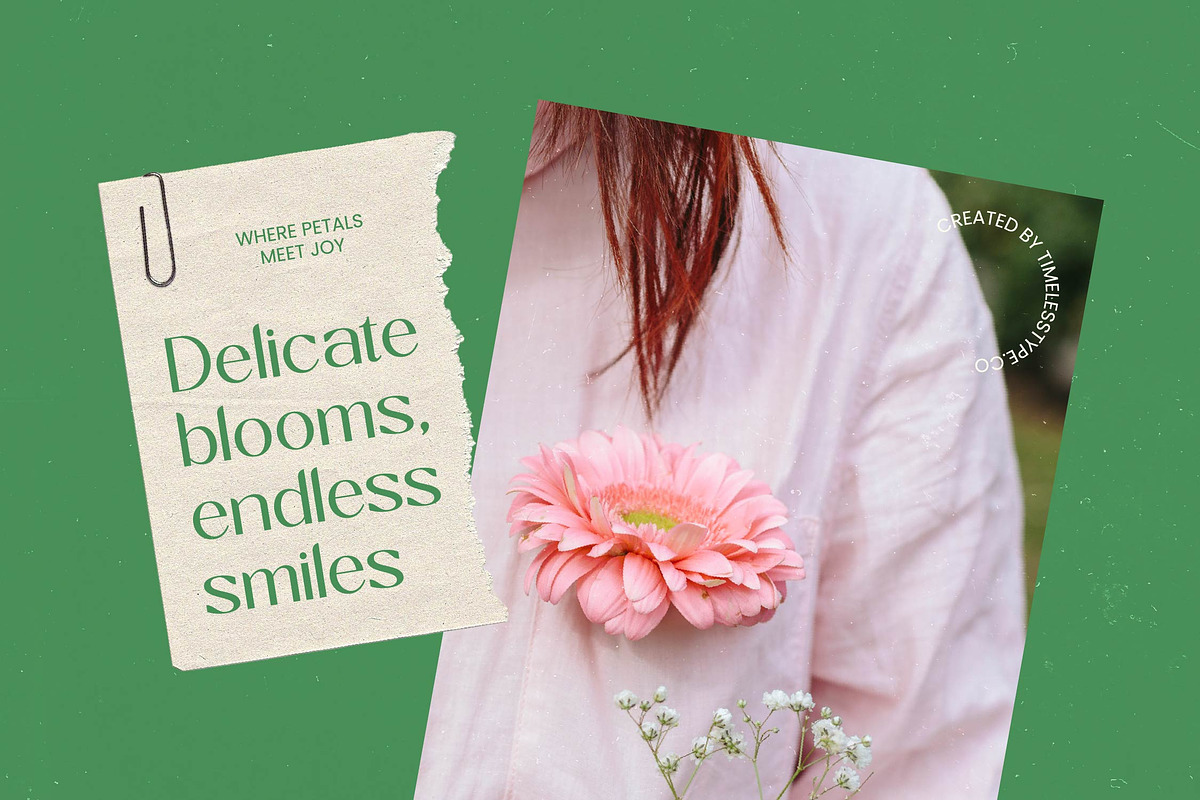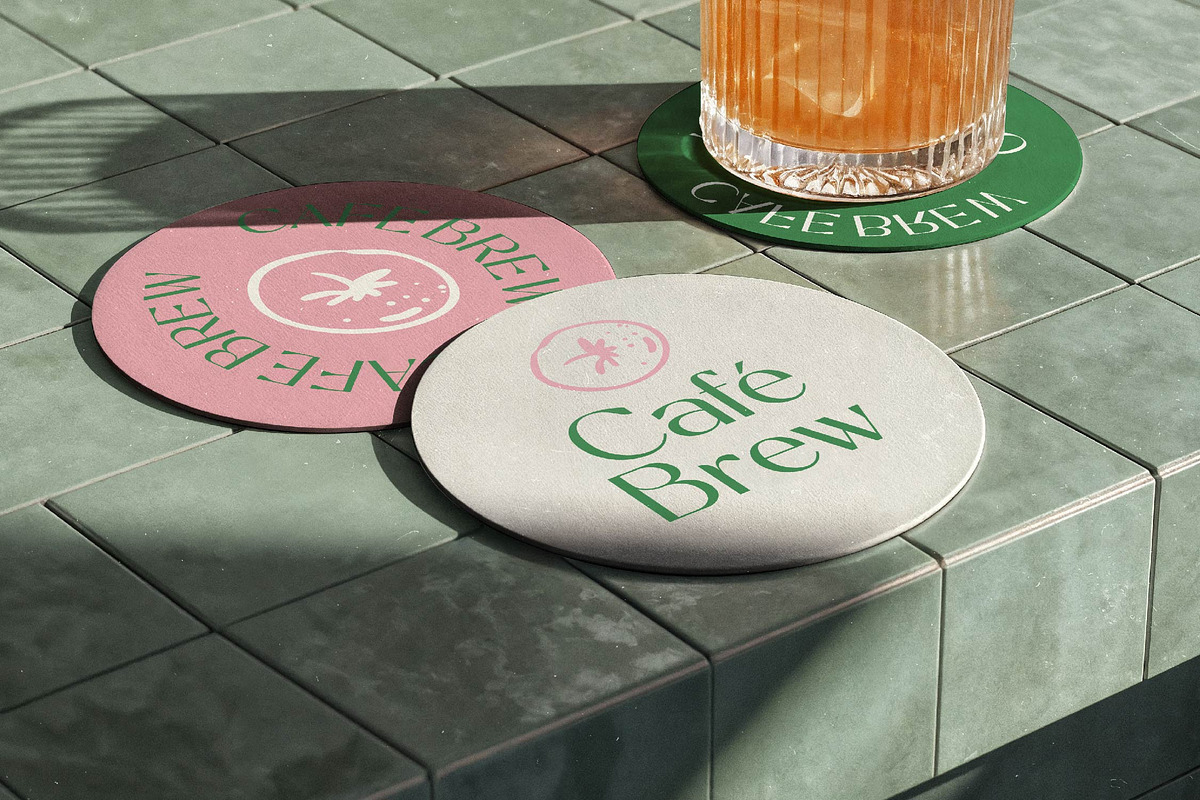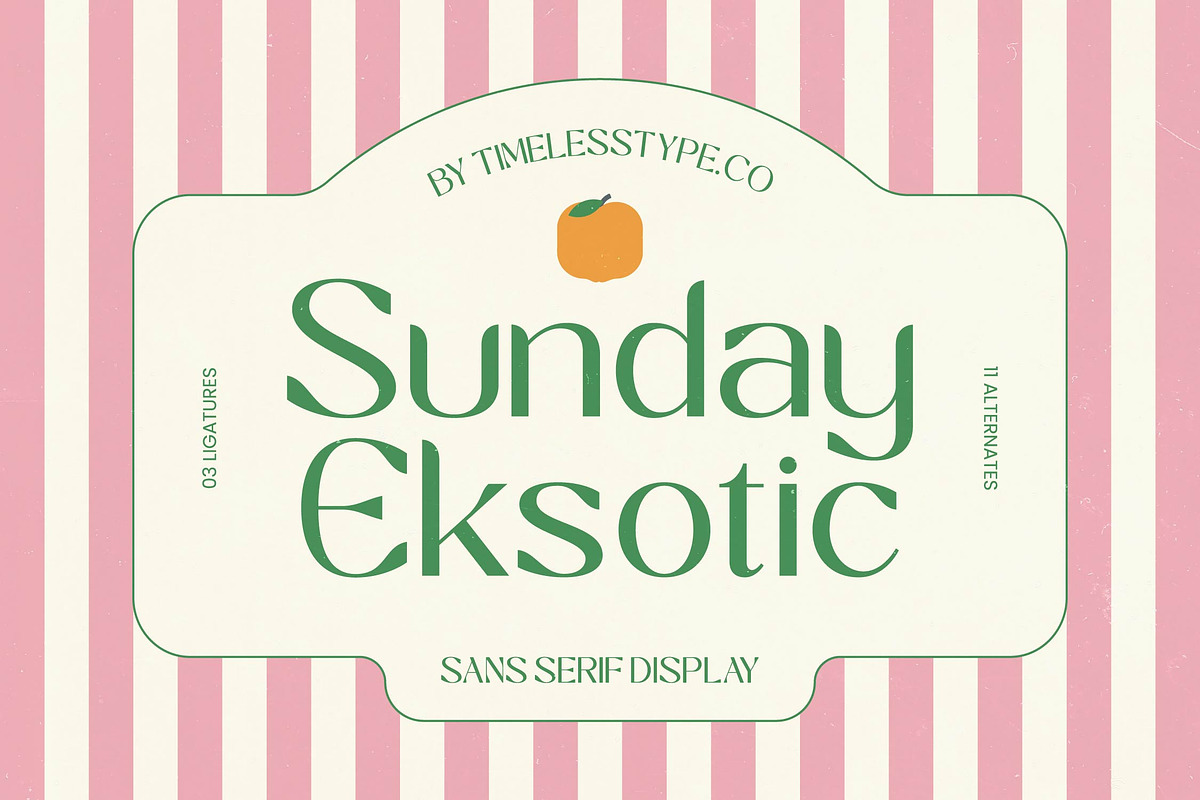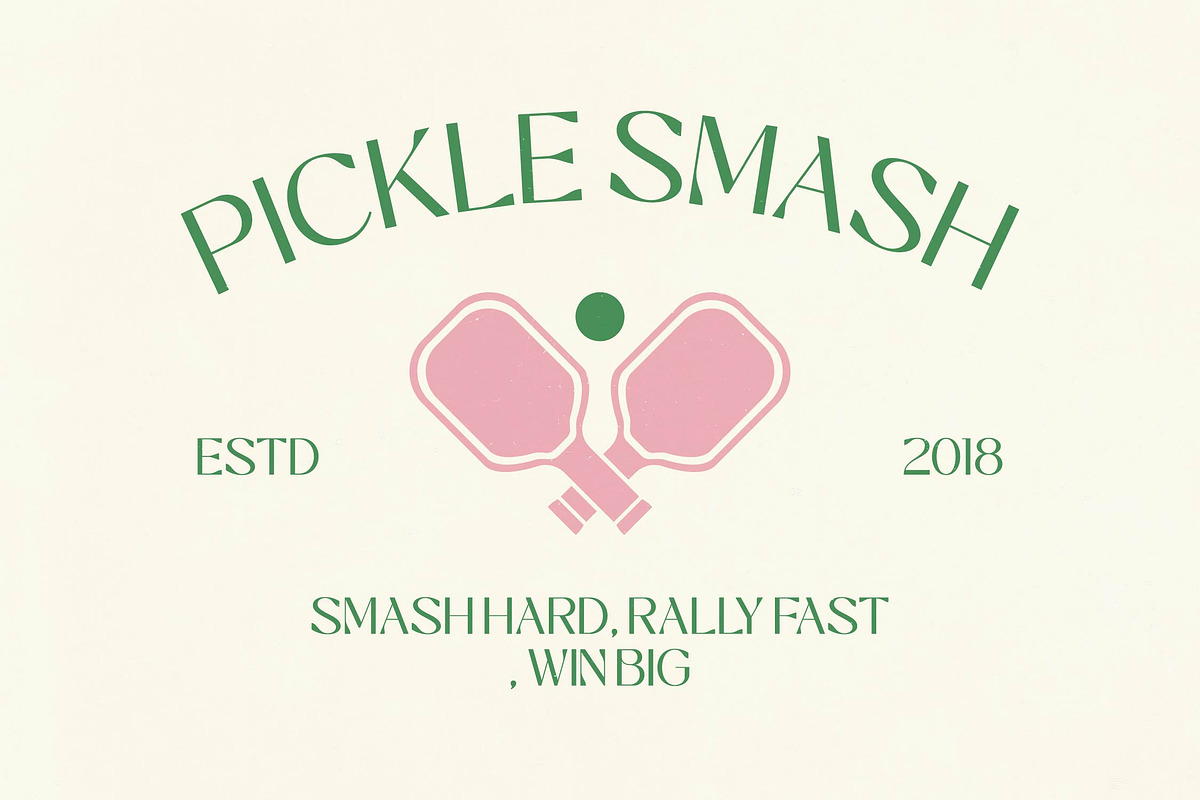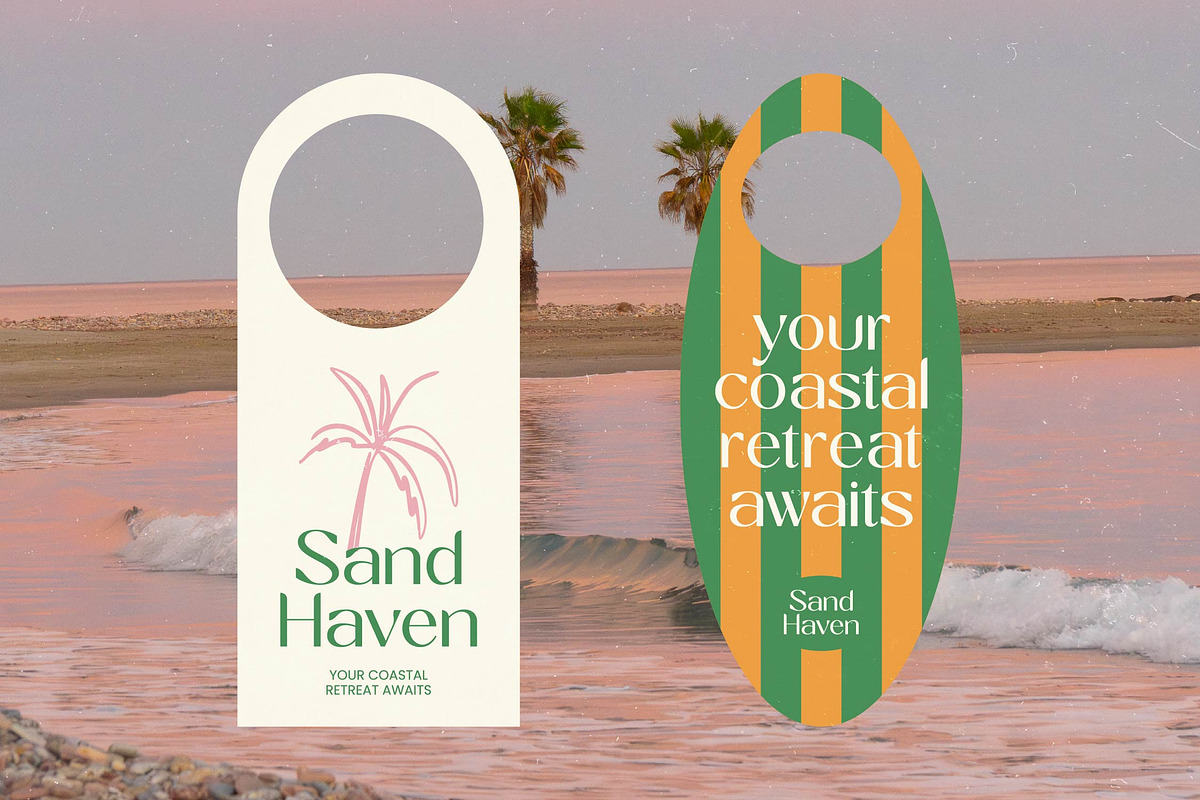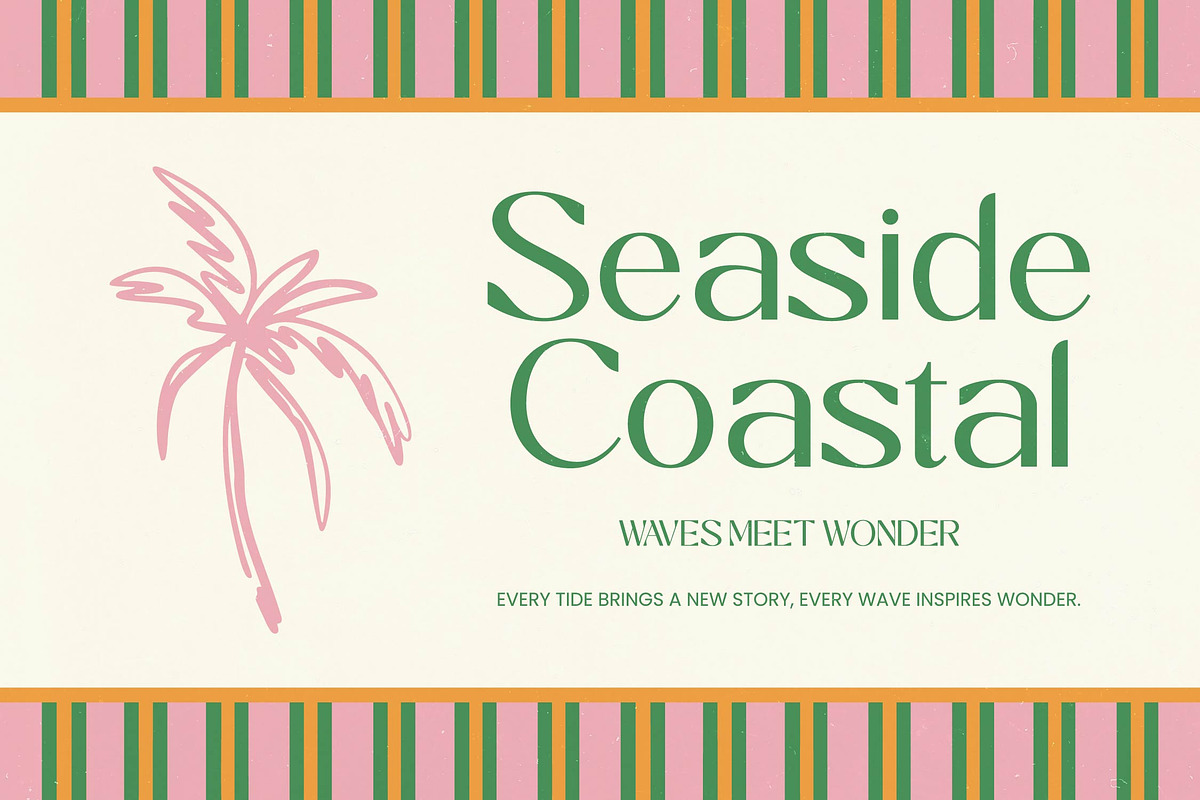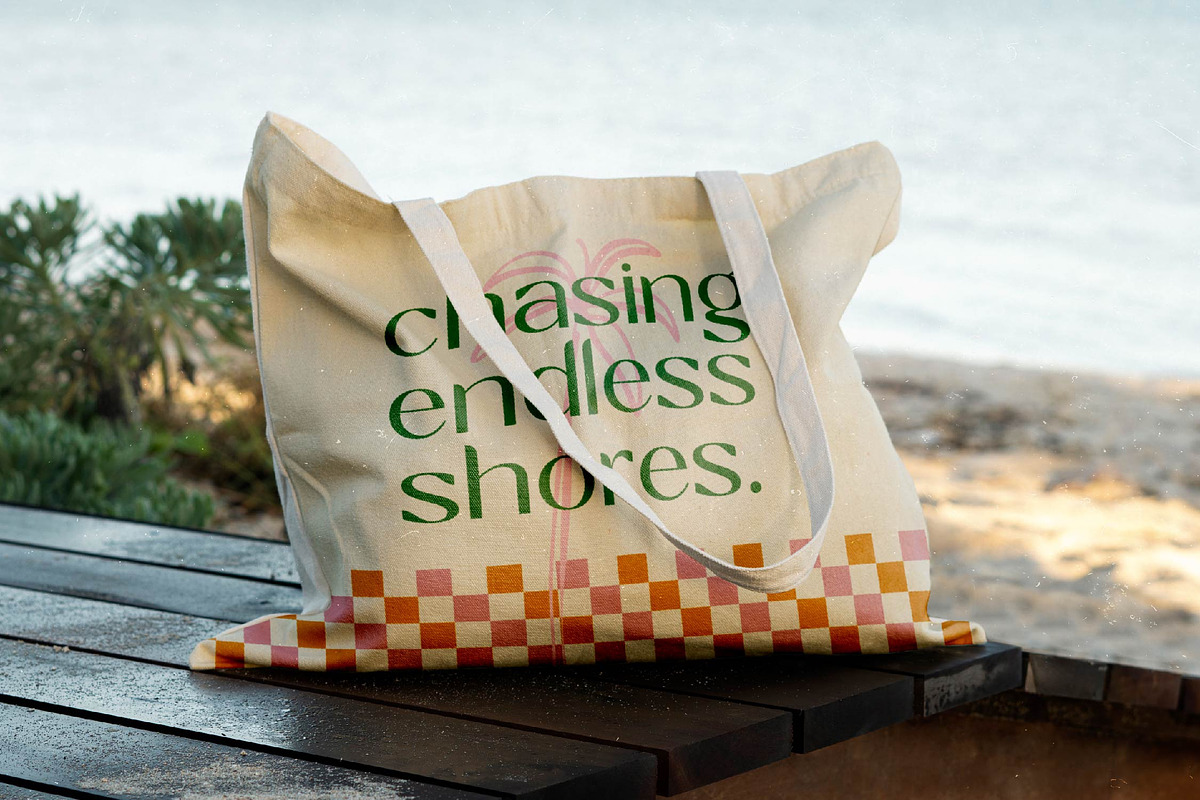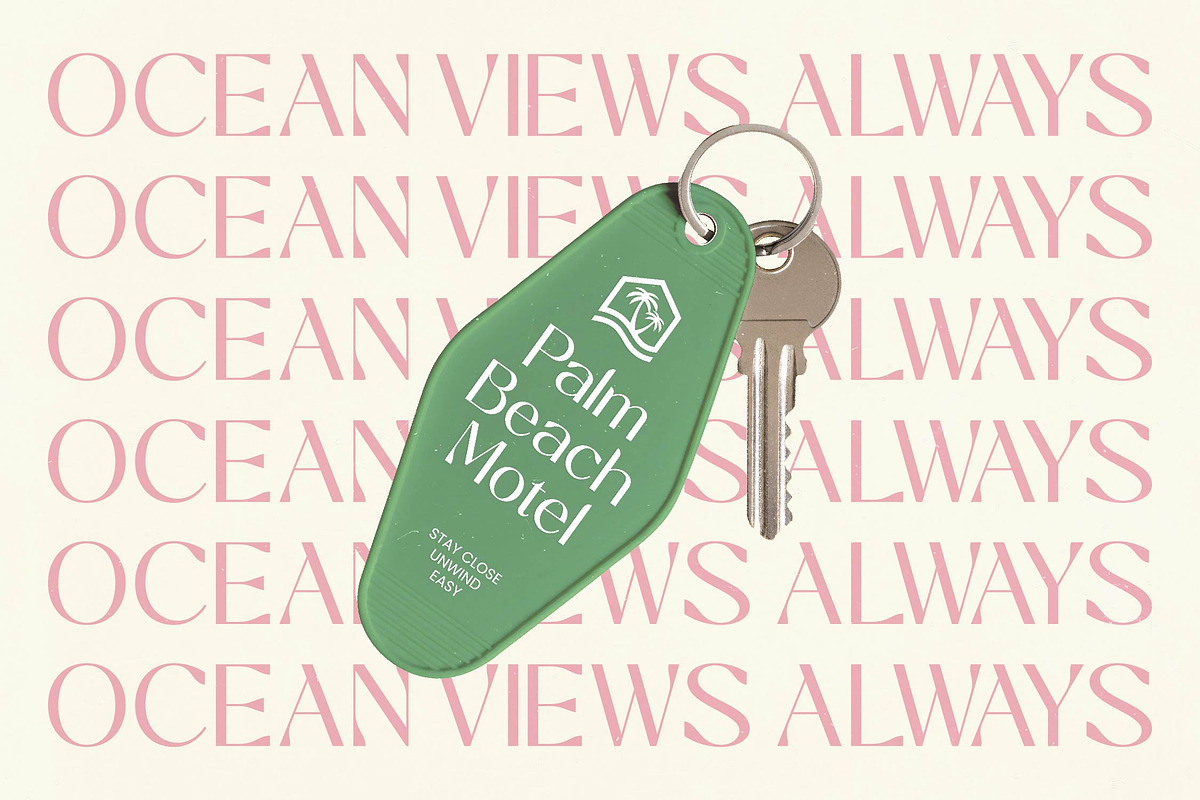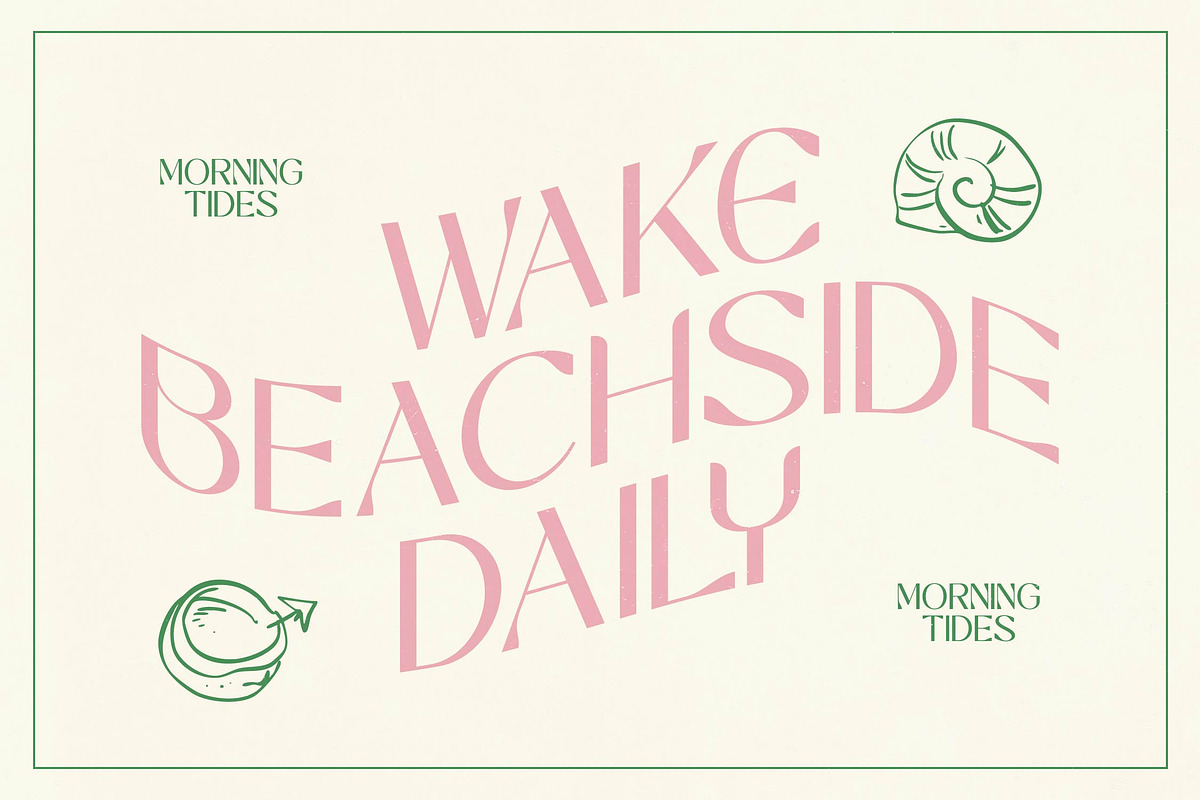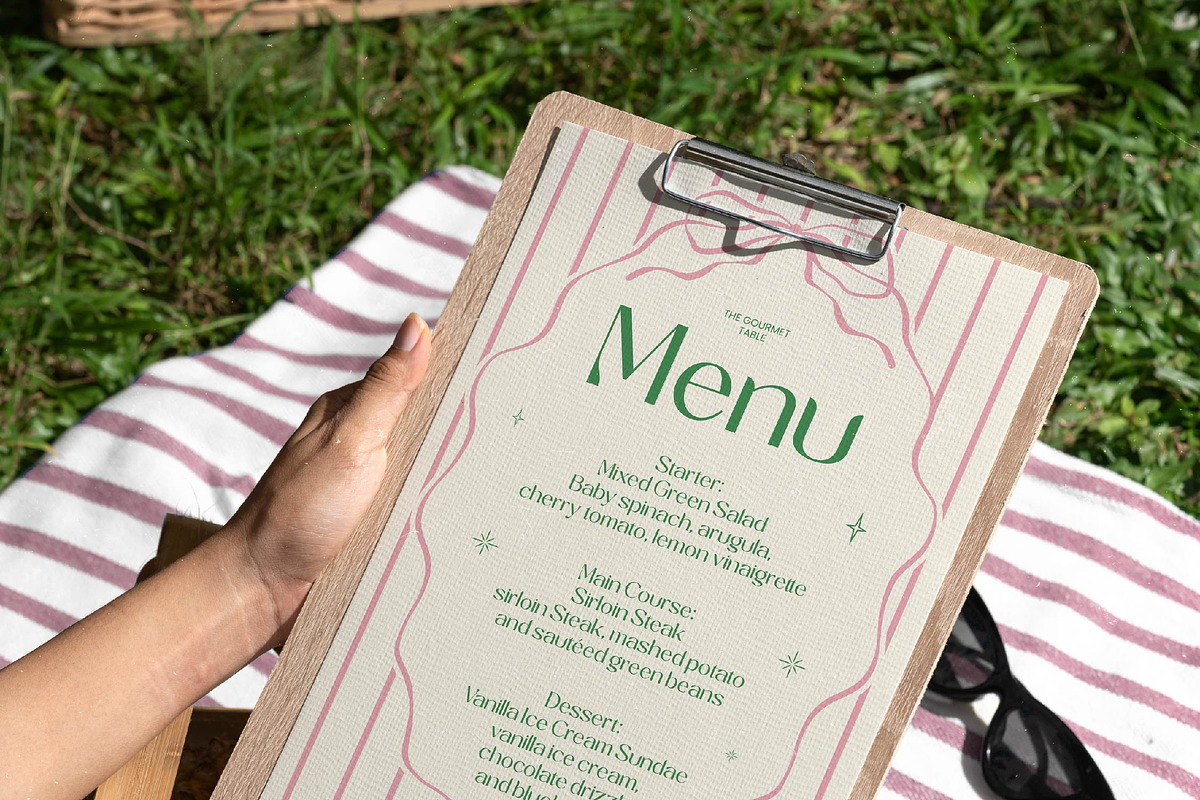
Sunday Eksotic Sans Serif Display
Sunday Eksotic – Sans Serif Display , Elevate your design projects with a touch of sophisticated flair using Sunday Eksotic – Sans Serif Display. This typeface masterfully blends high-contrast strokes with a modern aesthetic, creating a visual elegance that commands immediate attention. Its unique balance of sharp lines and graceful curves makes it a standout choice for designers looking to infuse a sense of organic luxury and artistic distinction into their creative work.
Precision meets creativity in every character of Sunday Eksotic – Sans Serif Display, offering a rich palette of distinctive alternates and bespoke ligatures. These features allow for deep customization, ensuring that your typography remains as unique as the brand it represents. Whether you are aiming for a retro-chic vibe or a cutting-edge look, this font provides the creative flexibility required for high-end professional compositions and bold headlines.
Break through language barriers with a font built for comprehensive global communication. With its extensive multilingual support, Sunday Eksotic – Sans Serif Display adapts seamlessly across global markets, making it incredibly versatile for international projects. This ensures that your brand message remains consistent and powerful, regardless of the geographic location or the diverse linguistic audience you are targeting.
Transform your brand identity with the unparalleled versatility of Sunday Eksotic – Sans Serif Display. It is the perfect choice for luxury branding, premium packaging, and high-end editorial design. From high-fashion magazines to upscale boutique labels, this typeface delivers a strong visual impact that resonates with a sophisticated audience, making it an essential asset for any modern designer’s toolkit seeking to achieve a premium finish.